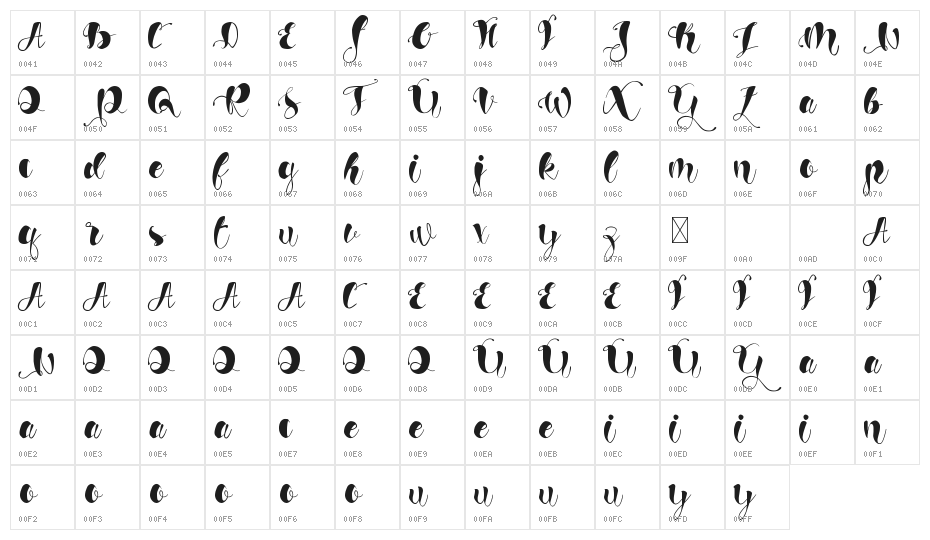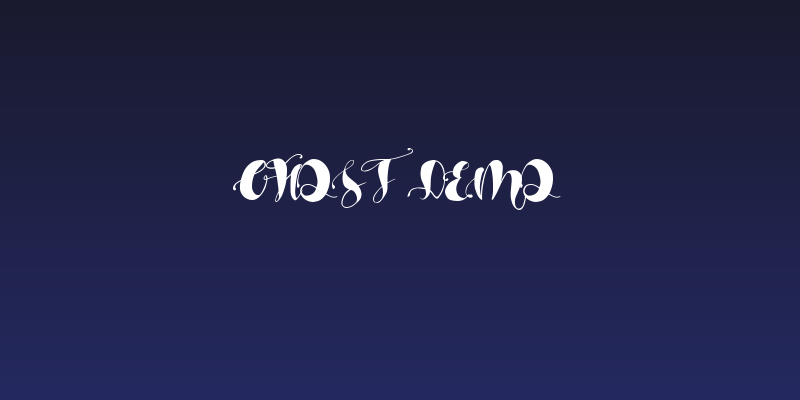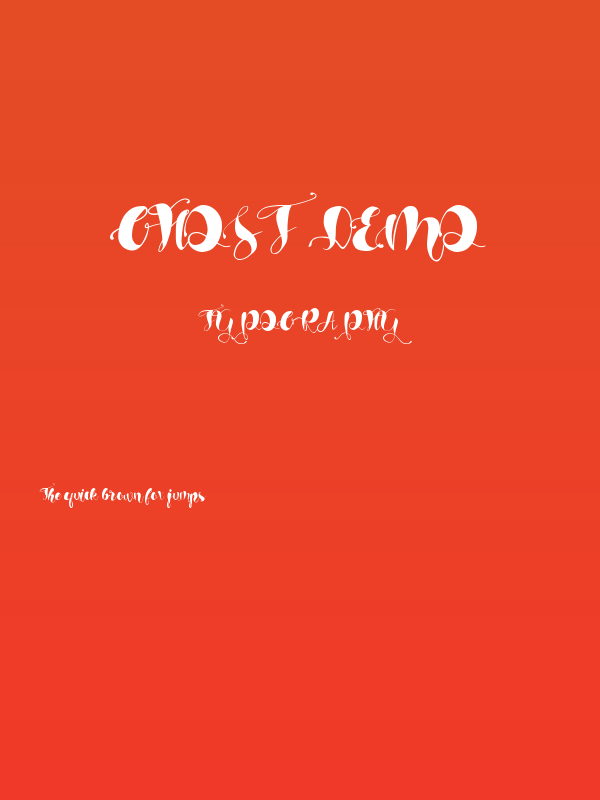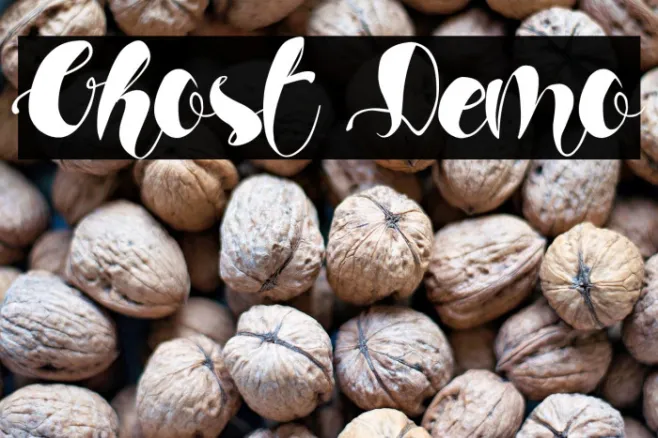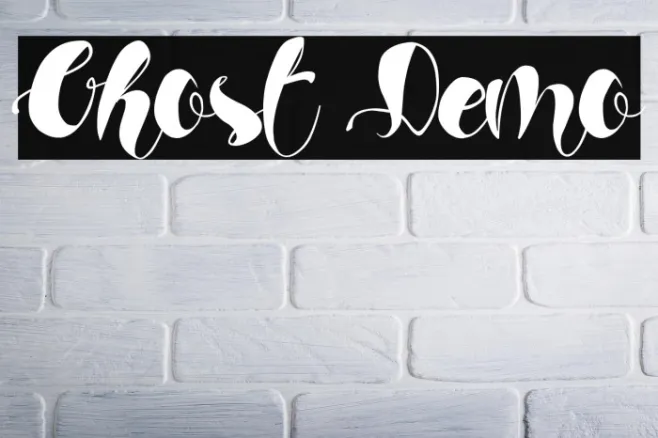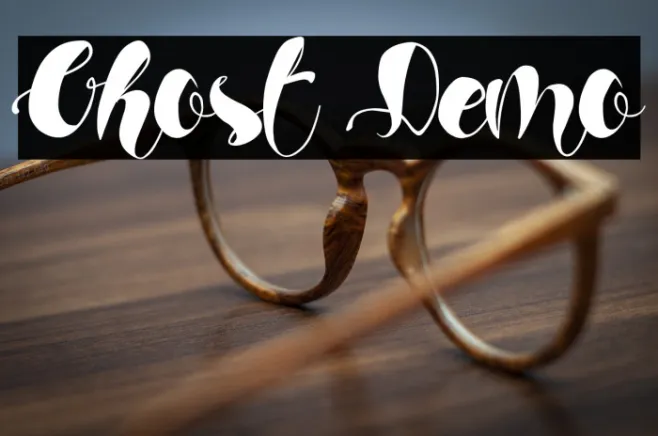
Ghost Demo Font
Ghost Demo Description
This font is a bold and expressive script style that features fluid, flowing lines and intricate swashes. The characters are highly stylized, with a playful and artistic flair that makes each letter stand out. The uppercase letters are particularly ornate, with dramatic loops and curves that add a sense of movement and elegance. The lowercase letters maintain the same fluidity, creating a cohesive and harmonious look. The numbers and special characters are equally decorative, ensuring consistency throughout. This font is perfect for projects that require a touch of sophistication and creativity.